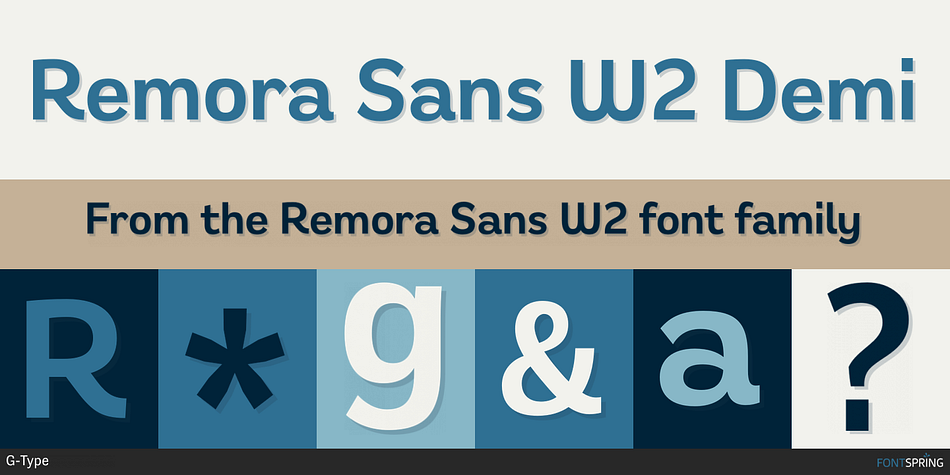
Remora Sans W2 Demi
Designed by Nick Cooke, Remora Sans W2 is a sans serif font family. This typeface has fourteen styles and was published by G-Type.
Remora Sans is an ultra versatile sans serif type family, the more exuberant and characterful partner to Remora Corp, ideal for any design project.
Each Remora set comes in 5 different width options ranging from the condensed W1 to the expanded W5, each boasting 7 weights plus true italics.
Remora Sans W1’s condensed letterforms are tailor made for flexible copy fitting and working within space restrictions without sacrificing design excellence.